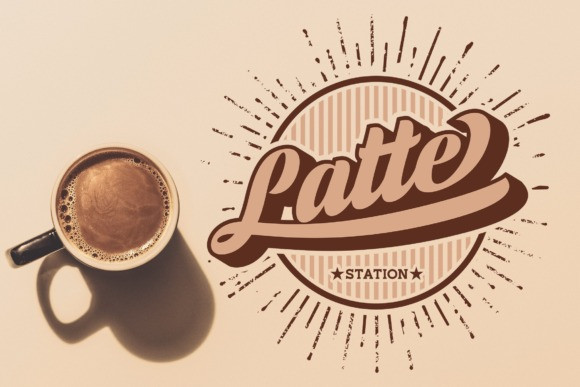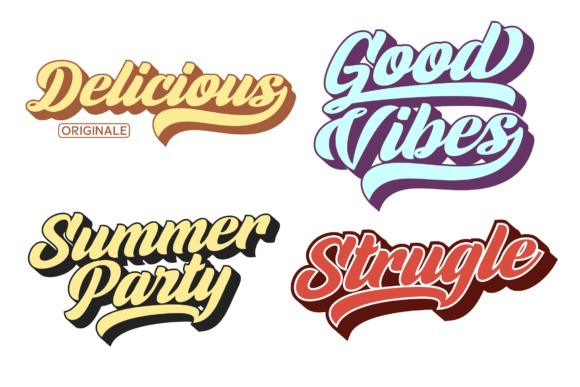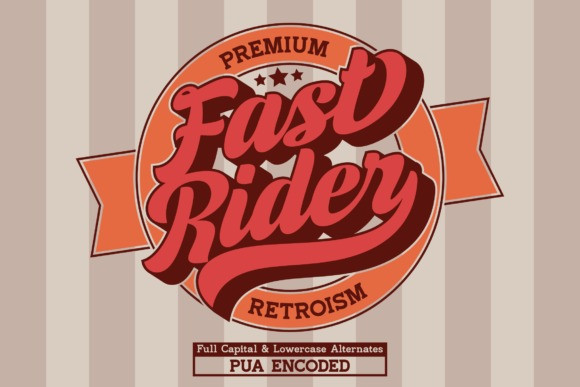
Fast Rider Font
Fast Rider Font is a neat and retro brushed handwritten font. It has many alternate characters which will give you convenience when choosing a character for each design project. This font is PUA encoded which means you can access all of the glyphs and swashes with ease!